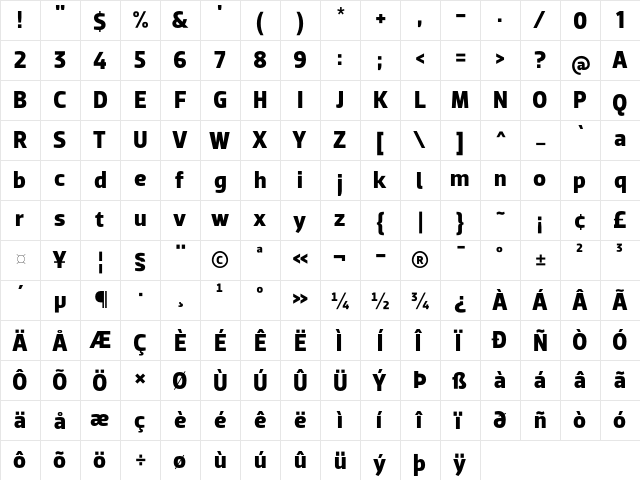
Dobra Bold
| Foundry | Dino dos Santos _DSType |
| Designer | Dino dos Santos |
Design Context for Dobra Typeface
Dobra offers clean, dependable letterforms without strong stylistic allegiance, making it a practical choice for designers who need flexibility. Its bold stroke weight gives it real presence on the page.